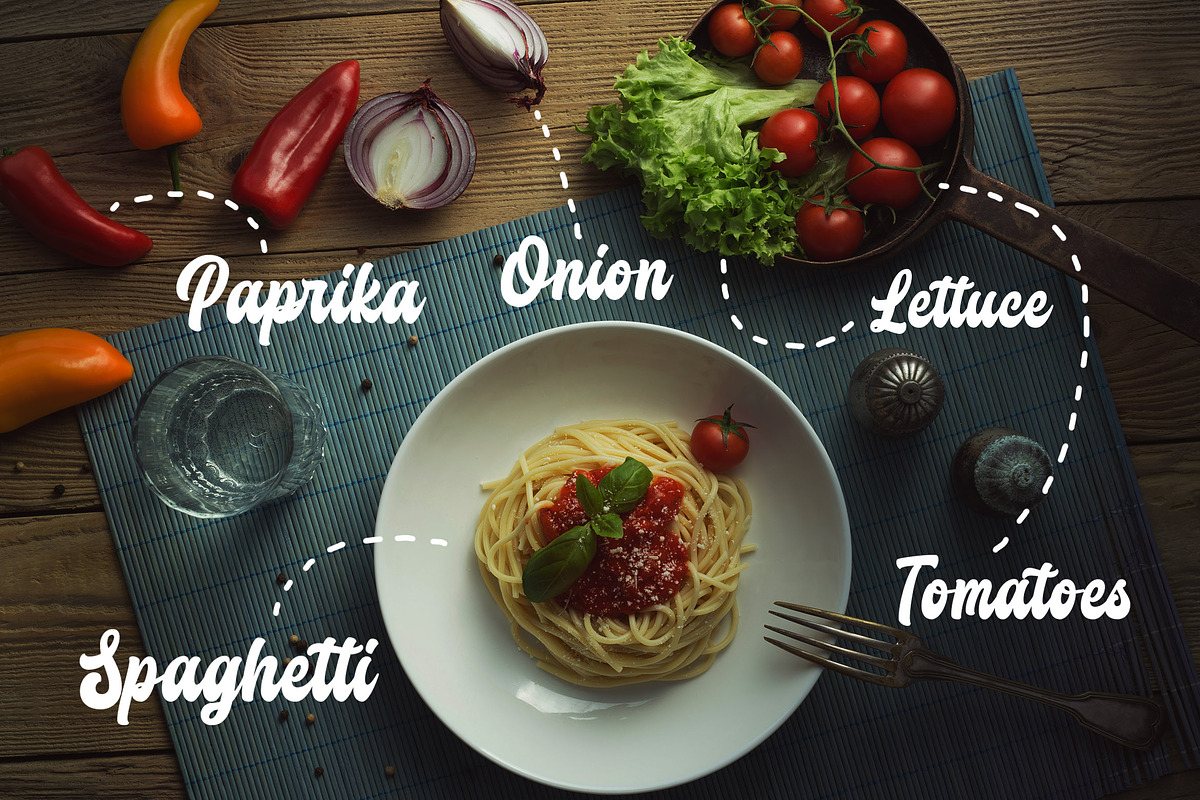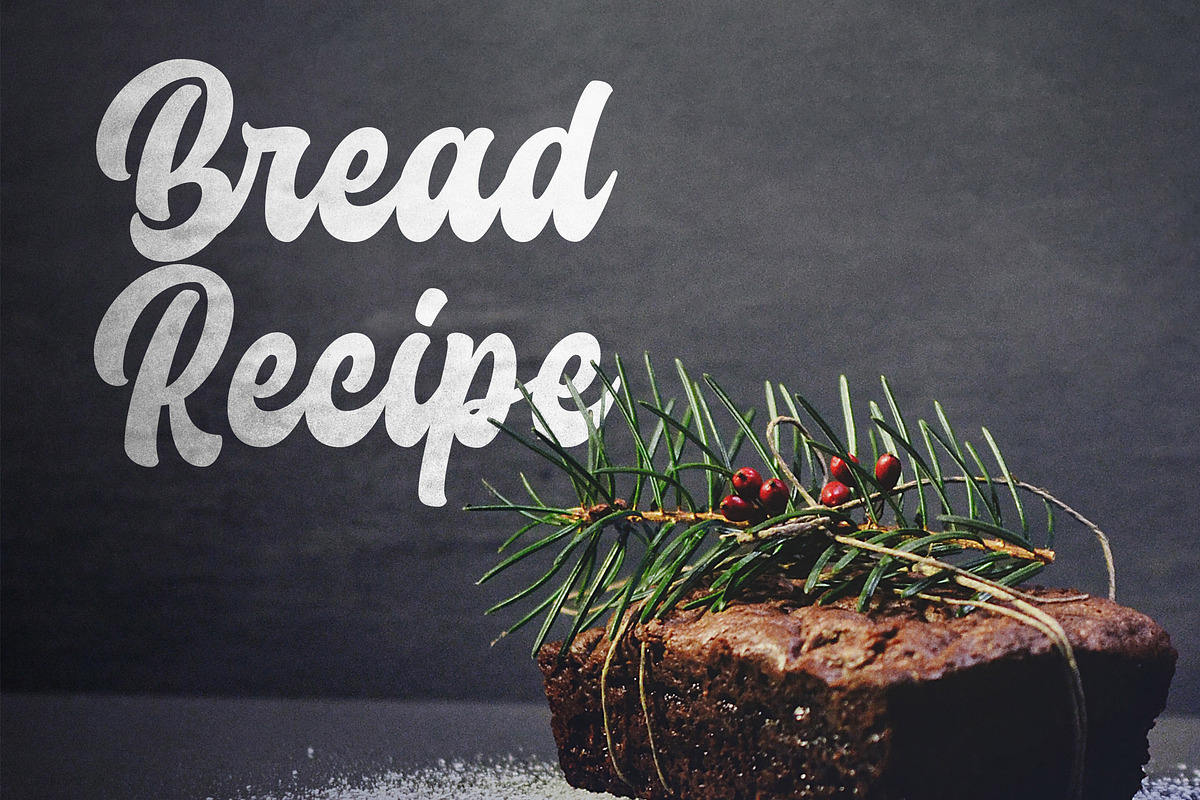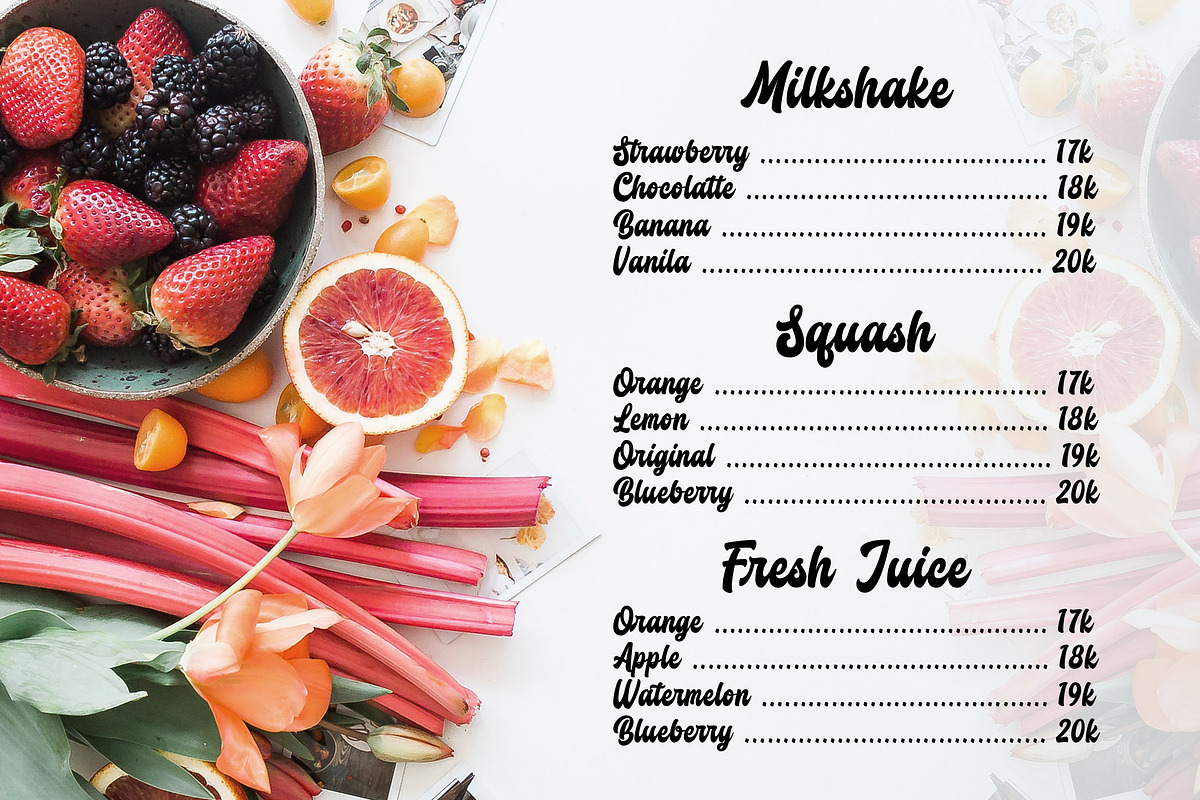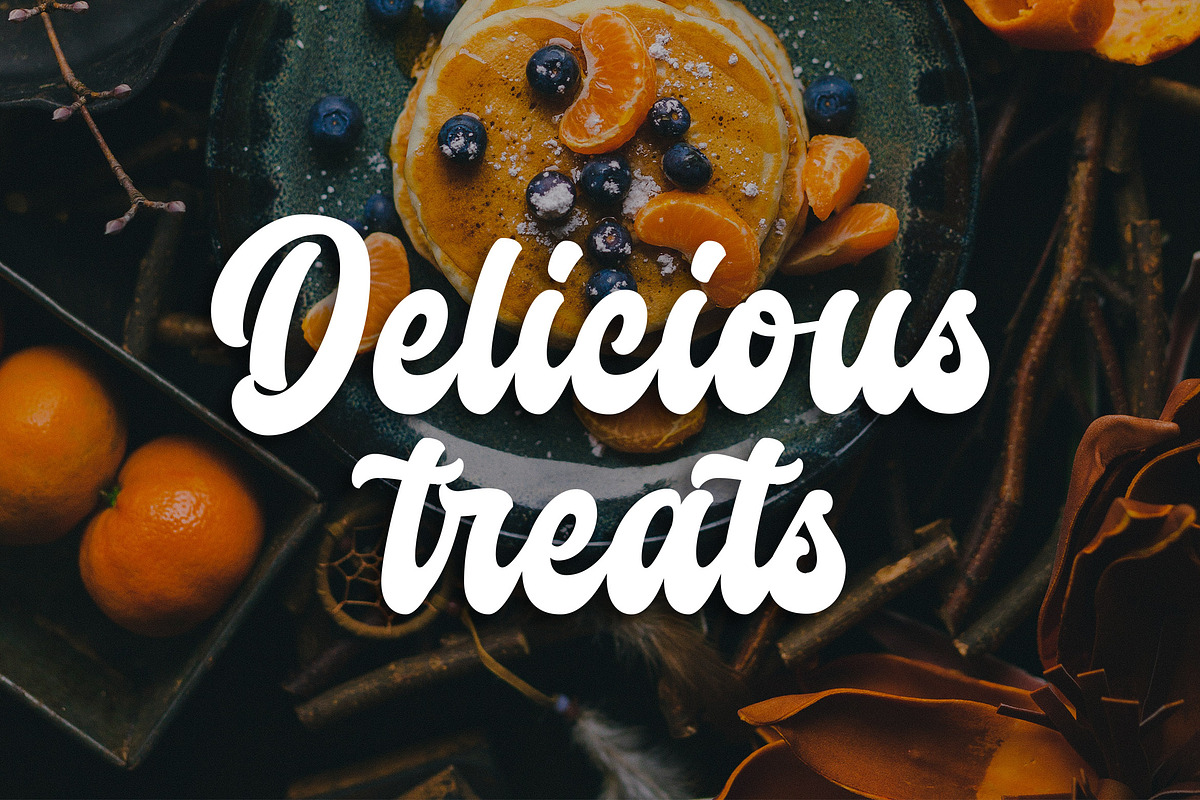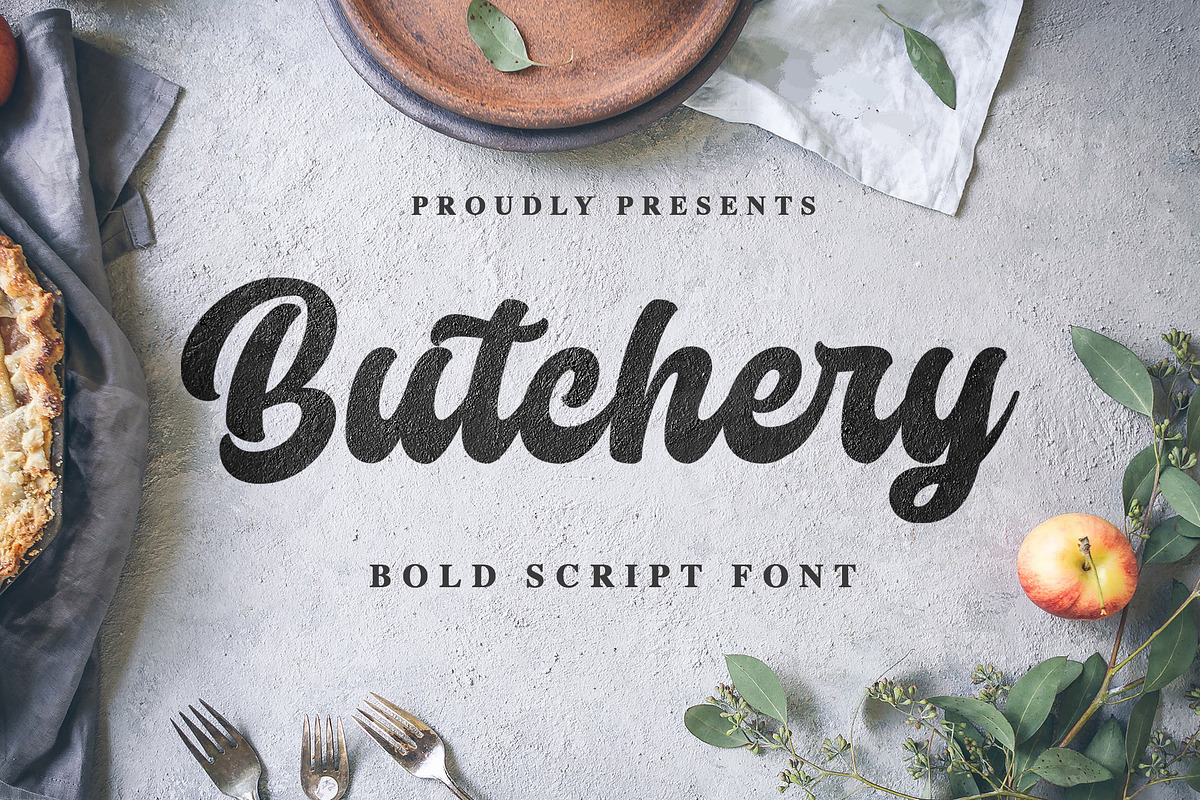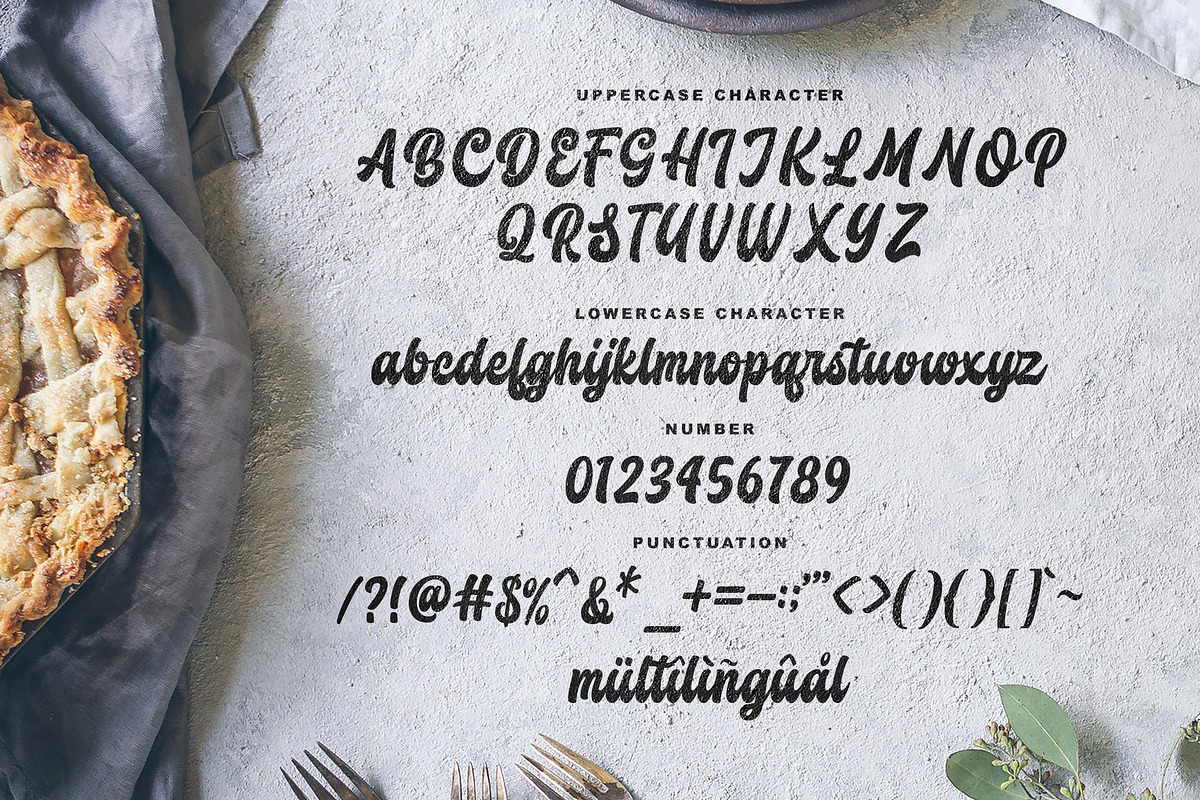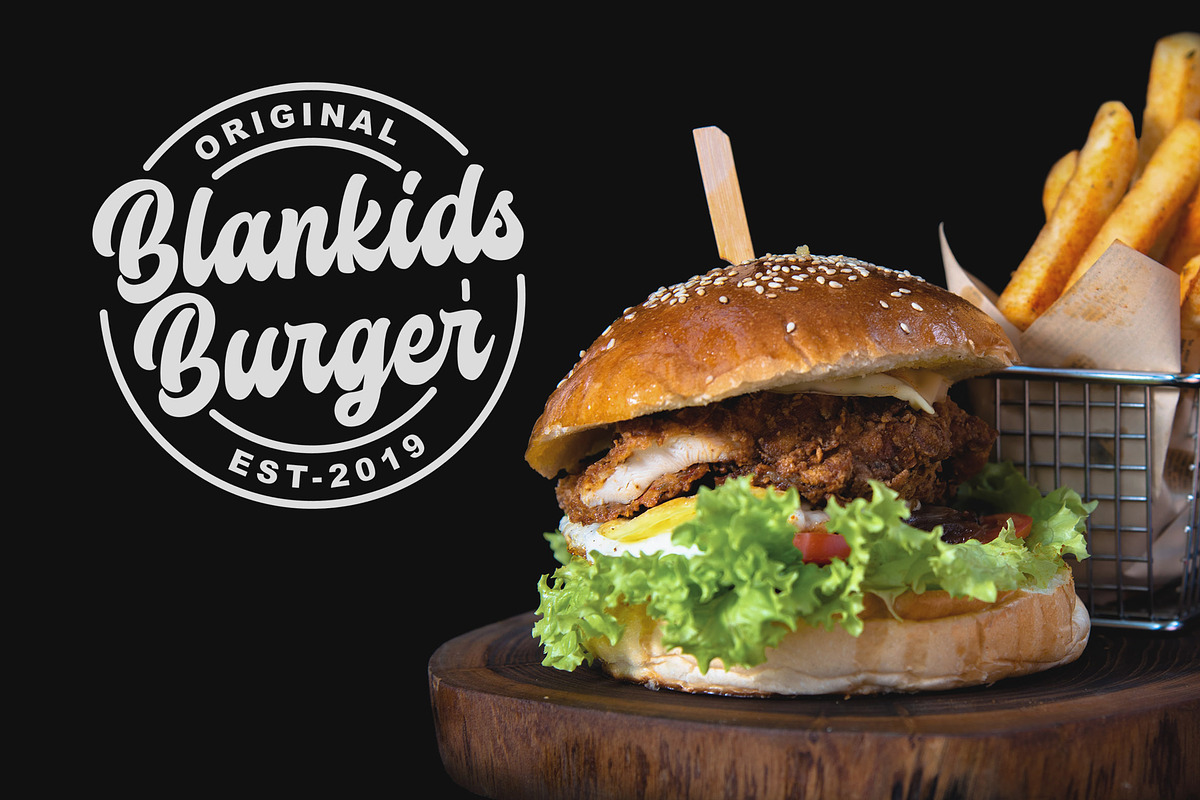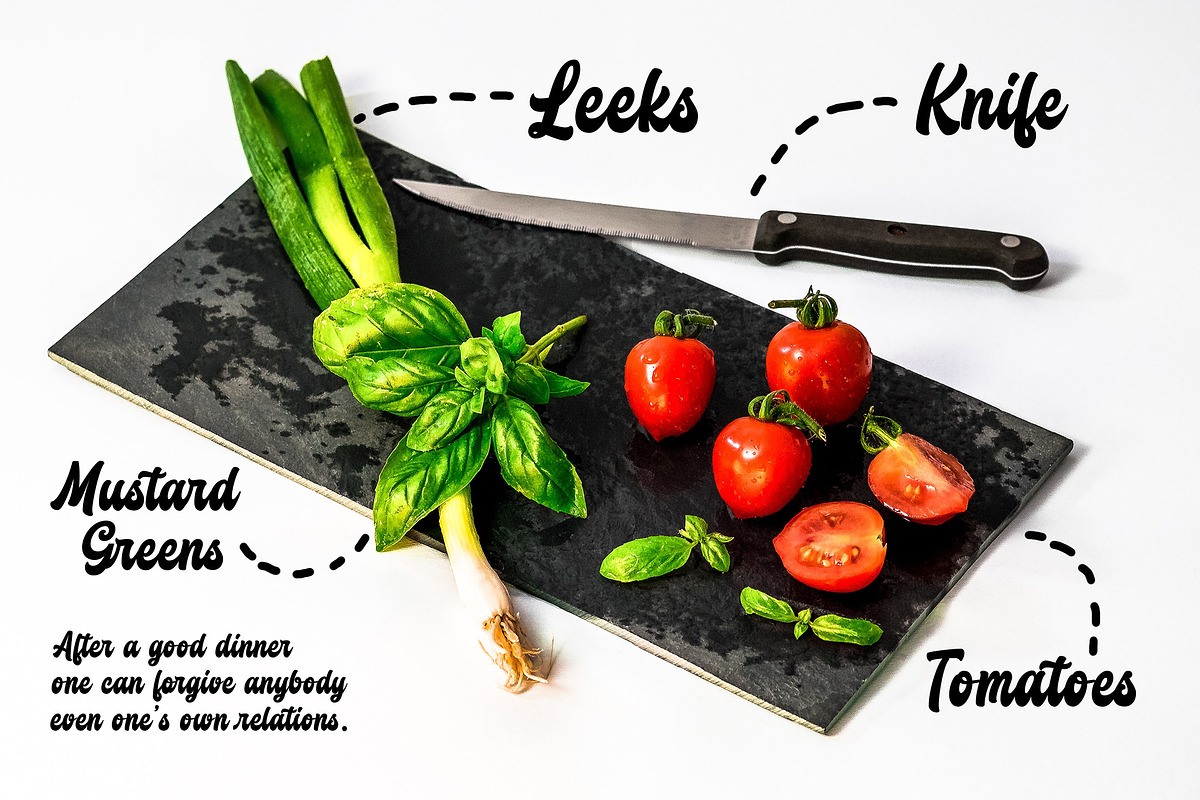
Butchery Bolds Script Font
Introducing a new retro bold script called Butchery. Butchery inspired by food posters, food menus and food packaging. Butchery good for logotype, food posters, food menus, food packaging and any more.